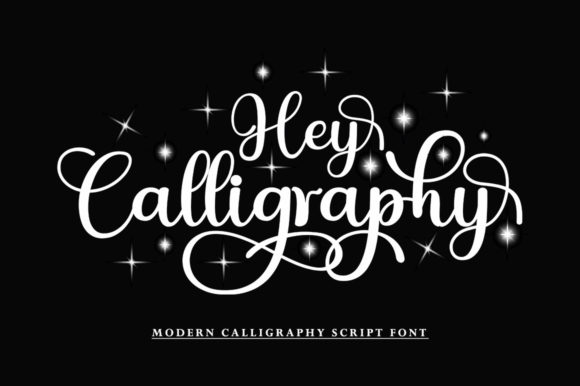
About Hey Calligraphy Font
Hey Calligraphy feels equally charming and elegant. It looks lovely on wedding invitations, thank you cards, quotes, greeting cards, logos, business cards and every other design which needs a customized touch.